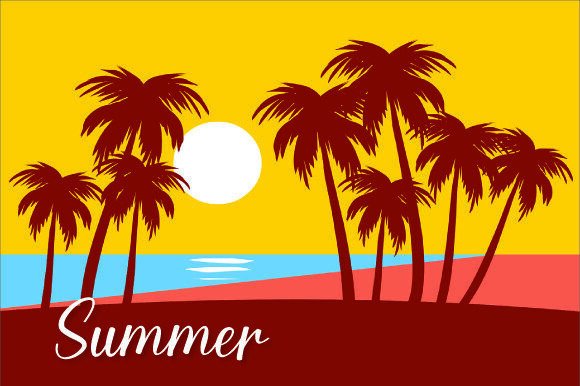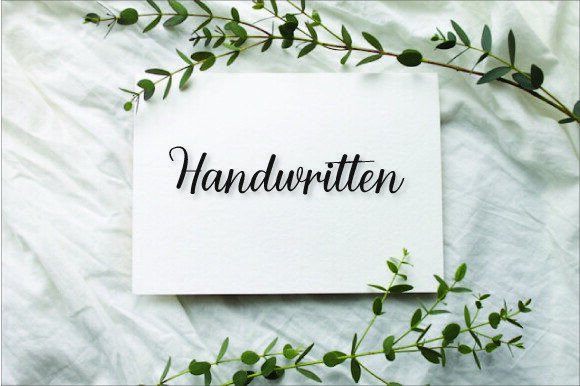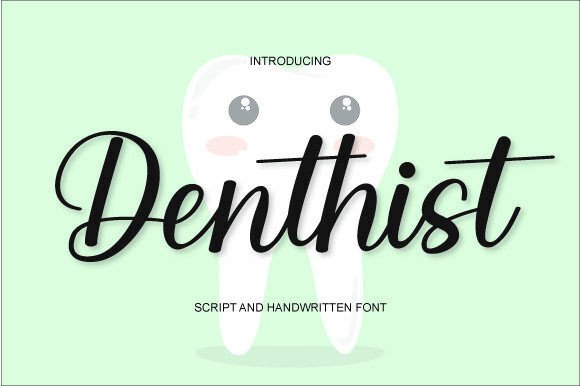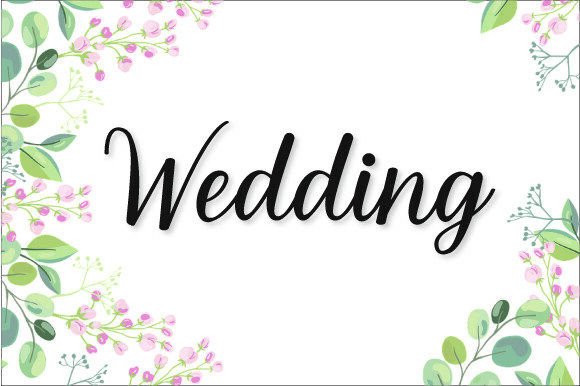
Denthist Font: Sweet Cursive Script for Wedding & Branding!
About the Denthist Font
Presenting Denthist Font, a unique and stylish typeface that will make your work stand out. Denthist is a sweet and cursive handwritten font. This gentle font will look gorgeous on a variety of design ideas. It will add a joyful and romantic touch to each of your projects! Perfectly fit for branding, logo, wedding things, greeting cards, fashion, lookbook, marketing promotion, and any time you want your design to look fancy and elegant but still casual.
Denthist’s delicate cursive style excels in applications requiring a touch of romanticism and playfulness, such as wedding invitations, greeting cards, or branding for businesses focused on beauty, fashion, or artisanal goods. It works particularly well for short text elements like headlines, logos, and short quotes. However, its low x-height and cursive nature make it unsuitable for body text or UI elements where readability is paramount.
Pairing Denthist effectively requires considering its informal elegance. A clean sans-serif like Montserrat or Lato provides a strong contrast and excellent readability for supporting text. For a more luxurious feel, a classic serif such as Garamond or Didot can be used sparingly to add a layer of sophistication. Avoid pairing it with other highly decorative or script fonts, as this risks visual clutter.
Denthist projects an overall personality of gentle elegance and friendly approachability. It’s best suited for brands aiming for a soft, romantic, or handcrafted aesthetic.